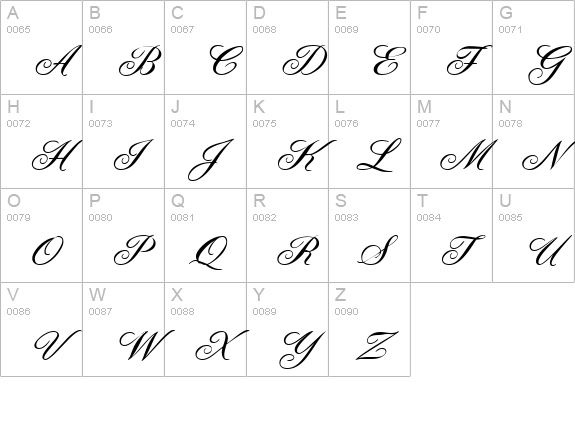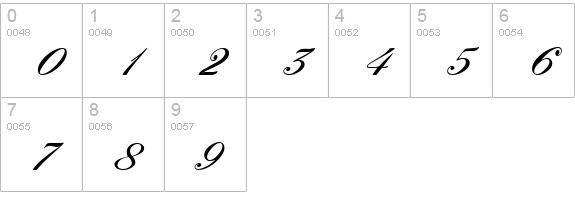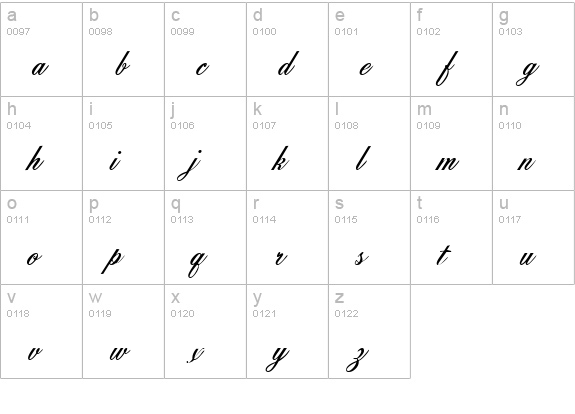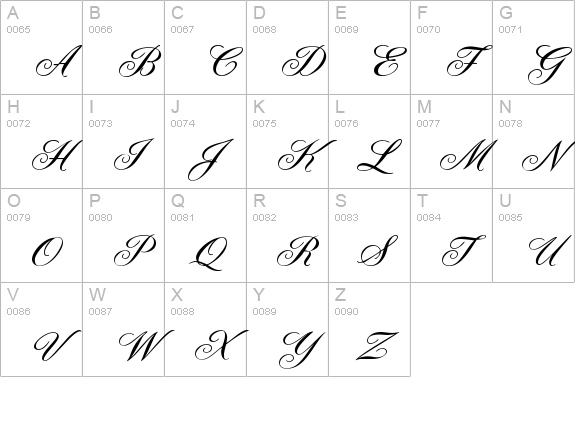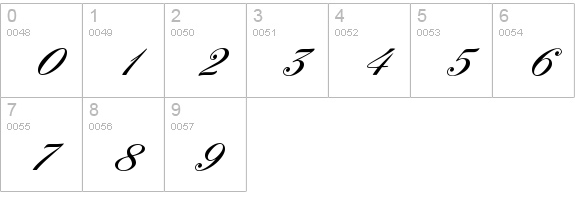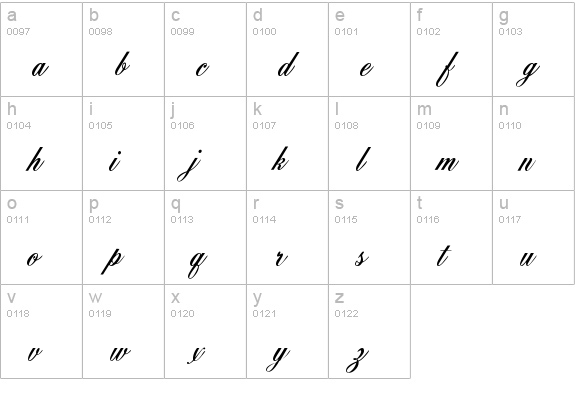
FleurishScript Regular is the standard, neutral variant in the FleurishScript typeface family \xE2\x80\x94 well suited to general body text, paragraphs, and standard typographic work.
FleurishScript Regular font is a charming and elegant typeface designed to add a touch of sophistication to your projects. This beautiful script font features delicate curves and flowing lines that exude a sense of grace and beauty. Perfect for wedding invitations, branding, and any design that calls for a touch of romance. What's even better is that FleurishScript Regular font is available for free download at FontsMarket.com. You can easily elevate your designs with this stunning font without breaking the bank. Don't miss out on the opportunity to enhance your projects with the timeless elegance of FleurishScript Regular font.